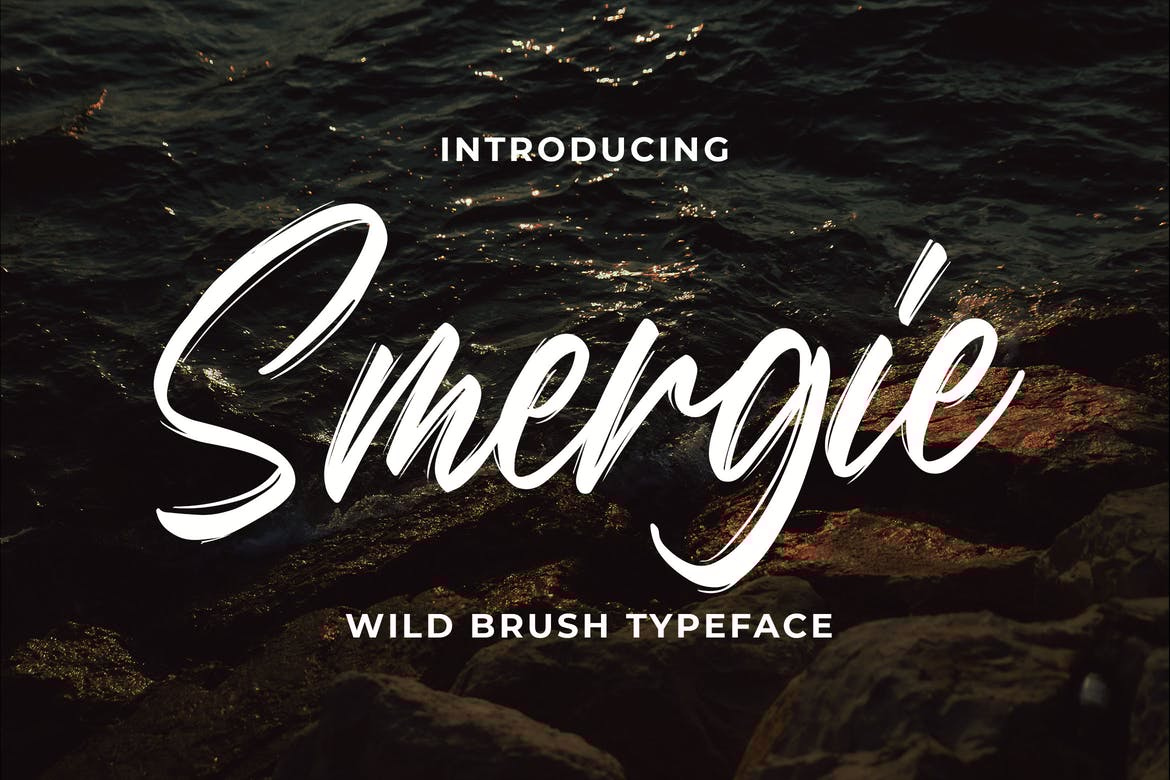
Smergie - Wild Brush Typeface
Smergie Wild Brush Typeface is perfect for untamed artistic branding, wild creative studio identities, raw street art promotions, rebellious fashion campaigns, free-spirited music marketing, untethered adventure companies, spontaneous event materials, and unleashed advertising projects. This unrestrained typeface works exceptionally well in both digital applications and print media where creative wildness and artistic freedom are fundamental design requirements.
What makes Smergie Wild Brush Typeface so exciting is its explosive interpretation of unbridled creativity and artistic rebellion through wildly energetic letterforms that seem painted with the same spontaneous passion and untamed artistic spirit that defines the most authentic creative expression. The font features untamed characters with wild proportions, rebellious brush strokes, and free-spirited details that communicate creative liberation, artistic authenticity, and the unrestrained energy that emerges when artists break free from conventional boundaries and express their truest creative vision. Its rebellious personality and artistic heritage make it ideal for creative brands seeking to establish authentic artistic credibility while appealing to audiences who value raw creativity and unfiltered artistic expression.
The Smergie Wild Brush Typeface family includes multiple stylistic variations with different wildness intensities, along with untamed alternates and rebellious ornamental elements. Each style maintains the typeface's wild character while offering comprehensive character sets including free-spirited numerals, artistic punctuation marks, and special symbols designed to enhance creative communications and untamed branding efforts across various rebellious contexts.
This extraordinary typeface represents the perfect fusion of wild artistic expression and contemporary design functionality for creative and entertainment industries. Whether you're developing rebellious art studio identities, creating wild music festival materials, or designing unrestrained creative campaigns, Smergie Wild Brush Typeface Free Download delivers the untamed authenticity and versatility needed to connect with free-spirited creative audiences. The font's wild appeal makes it particularly effective for street artists, independent musicians, creative collectives, and businesses celebrating the raw power and authentic beauty of unrestrained artistic expression.
The carefully crafted wild details and optimized rebellious performance in Smergie Wild Brush Typeface ensure both artistic authenticity and clear communication across all creative applications. Its untamed presence makes it perfect for wild branding, rebellious marketing materials, and free-spirited communications where its full wild character can create lasting connections with audiences seeking the freedom, authenticity, and unrestrained creative energy that comes from breaking artistic boundaries and expressing their wildest creative visions.